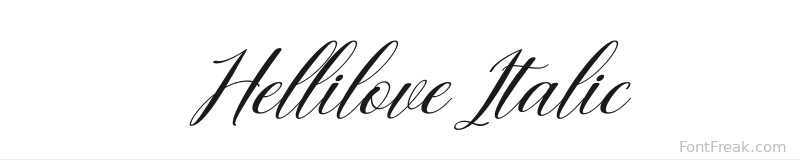
Hellilove Italic
Hellilove Italic by Kong Font is a beautifully crafted script typeface that exudes elegance and charm. As a decorative font, it features graceful, flowing lines and a distinctive italic style that adds a touch of sophistication to any design. The stroke weight varies subtly, creating a dynamic appearance that captures attention while maintaining readability. Its moderate contrast enhances its visual appeal, making it suitable for various creative projects. The generous spacing between letters ensures clarity, even at smaller sizes, while the decorative flourishes lend a unique character to the typeface.
This font is perfect for a variety of use cases, including wedding invitations that call for a romantic and whimsical touch, eye-catching movie posters where the title needs to stand out, and stylish restaurant menus that convey a sense of elegance. Additionally, it can be effectively used in branding materials for small businesses looking to convey a friendly yet professional image. Content creators will find Hellilove Italic ideal for social media graphics, adding a personal flair to their posts.
Targeting graphic designers, small business owners, and content creators alike, Hellilove Italic opens doors to endless creative possibilities. Its versatility allows it to adapt to both formal and casual projects, making it a valuable addition to any designer's toolkit.
What truly sets the Hellilove Italic font apart is its unique blend of charm and readability, making it suitable for both print and digital applications. This font stands out not only for its aesthetic appeal but also for its functionality, allowing creative individuals to bring their visions to life. Explore the Hellilove Italic font free download and elevate your designs with this stunning typeface today.